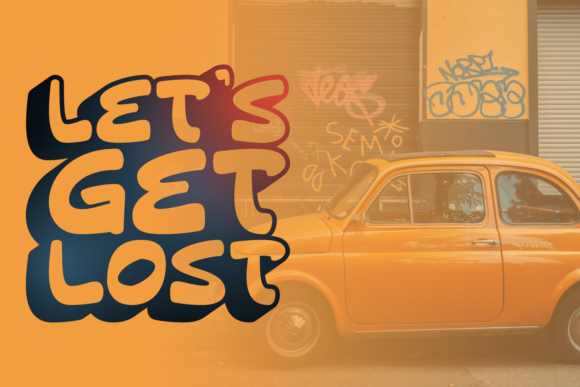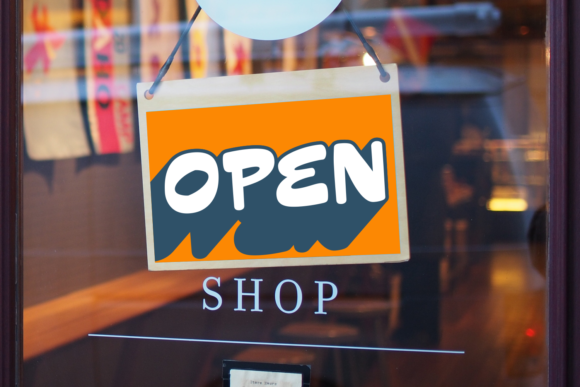
Introduction to Life Conundrum Font
You’ve been staring at a blank canvas for what feels like an eternity, trying to find the perfect font to bring your creative project to life. The words just aren’t flowing, and you’re starting to feel like you’ve hit a design roadblock. But then, like a breath of fresh air, you stumble upon the Life Conundrum Font – and everything changes.
This bold, urban font is more than just a pretty face; it’s a game-changer for designers looking to add a contemporary twist to their work. With its unique feel and high-quality design, the Life Conundrum Font is a valuable resource for anyone looking to take their creative projects to the next level.
Key Features of Life Conundrum Font
- High-quality, professional design suitable for various creative projects, including graphics, logos, and typography.
- Features a unique, modern aesthetic with a transparent background, making it ideal for backgrounds, overlays, and other design elements.
- Designed with precision and care, the Life Conundrum Font boasts a high resolution of 300 DPI, ensuring crisp and clear text output.
- Includes a comprehensive character set, covering a wide range of languages and alphabets, making it a versatile design resource.
- Perfect for designers and artists looking for a distinctive, high-quality font to elevate their creative projects.
Honest Review: Life Conundrum Font
I recently stumbled upon the Life Conundrum Font and was eager to dive in and see what it had to offer. As a designer, I’m always on the lookout for high-quality design resources to elevate my creative projects.
Here’s what I liked about the font:
- ✨ Beautifully crafted characters that add a unique touch to any design
- ✨ A wide range of weights and styles to suit various design needs
- ✨ Transparent background, allowing for seamless integration with any design
- ⚠️ Limited language support, which might be a concern for designers working on projects with multiple languages
Overall, the Life Conundrum Font is a solid addition to any designer’s toolkit. While it’s not perfect, its unique style and versatility make it a great option for creative projects. With a bit of clarification on usage and language support, I’d highly recommend it as a design resource.
How to Use Life Conundrum Font
The Life Conundrum Font is a unique and versatile design resource, ideal for creative projects requiring a touch of elegance and sophistication. With a transparent background, this high-quality font can be easily integrated into various design platforms.
Tips for Getting the Most Out of Life Conundrum Font
To get the most out of the Life Conundrum Font, experiment with different font sizes, colors, and combinations. Use it to create visually appealing headings, titles, and body text. Don’t forget to adjust the font size and spacing to ensure readability.
The Life Conundrum Font is perfect for:
- Menu designs and restaurant branding
- Event invitations and promotional materials
What makes the Life Conundrum Font a high-quality design resource?
The Life Conundrum Font is a high-quality design resource due to its unique and creative design, as well as its high-resolution and transparent background. This makes it perfect for use in a variety of creative projects, from branding and logos to digital products and print materials.